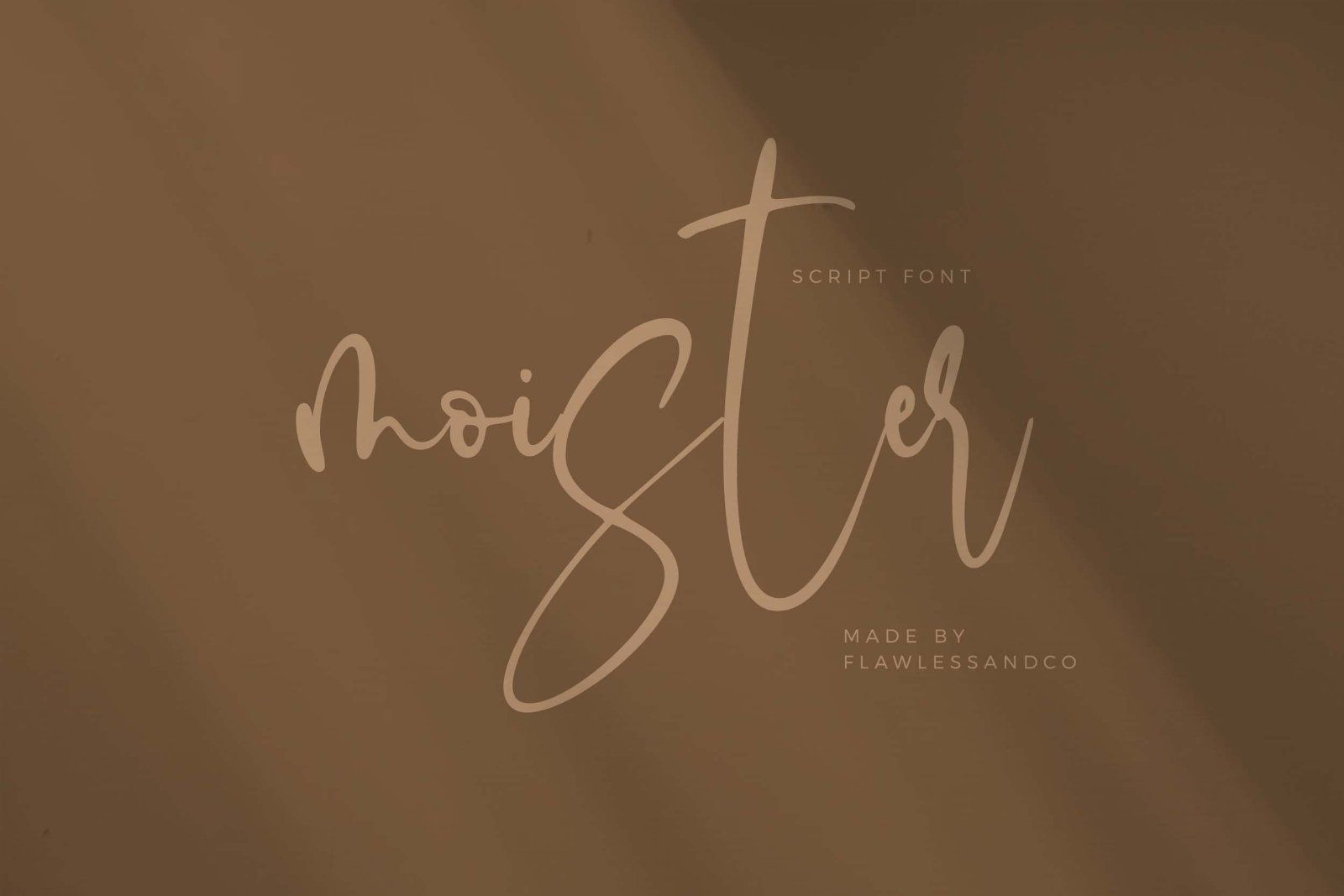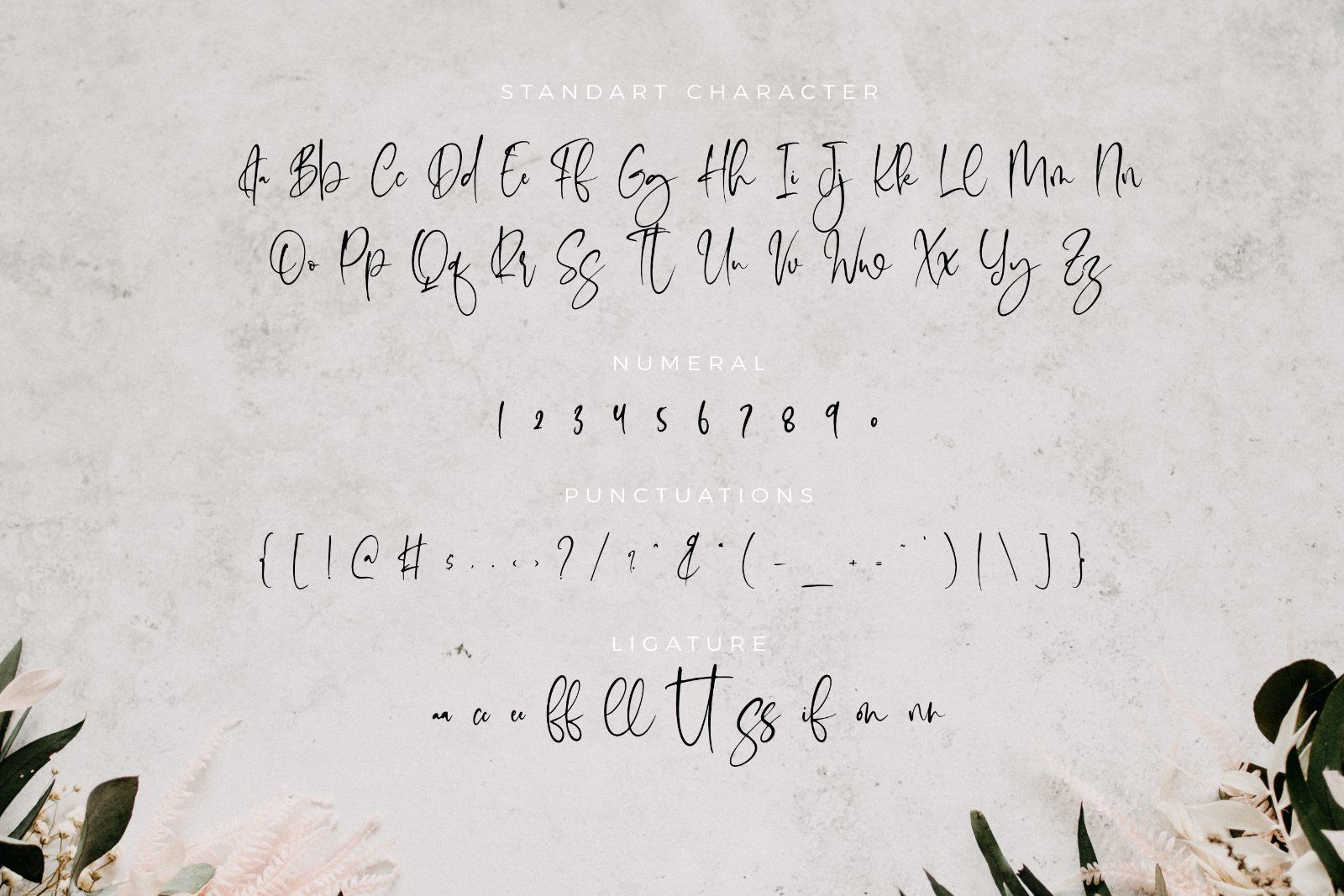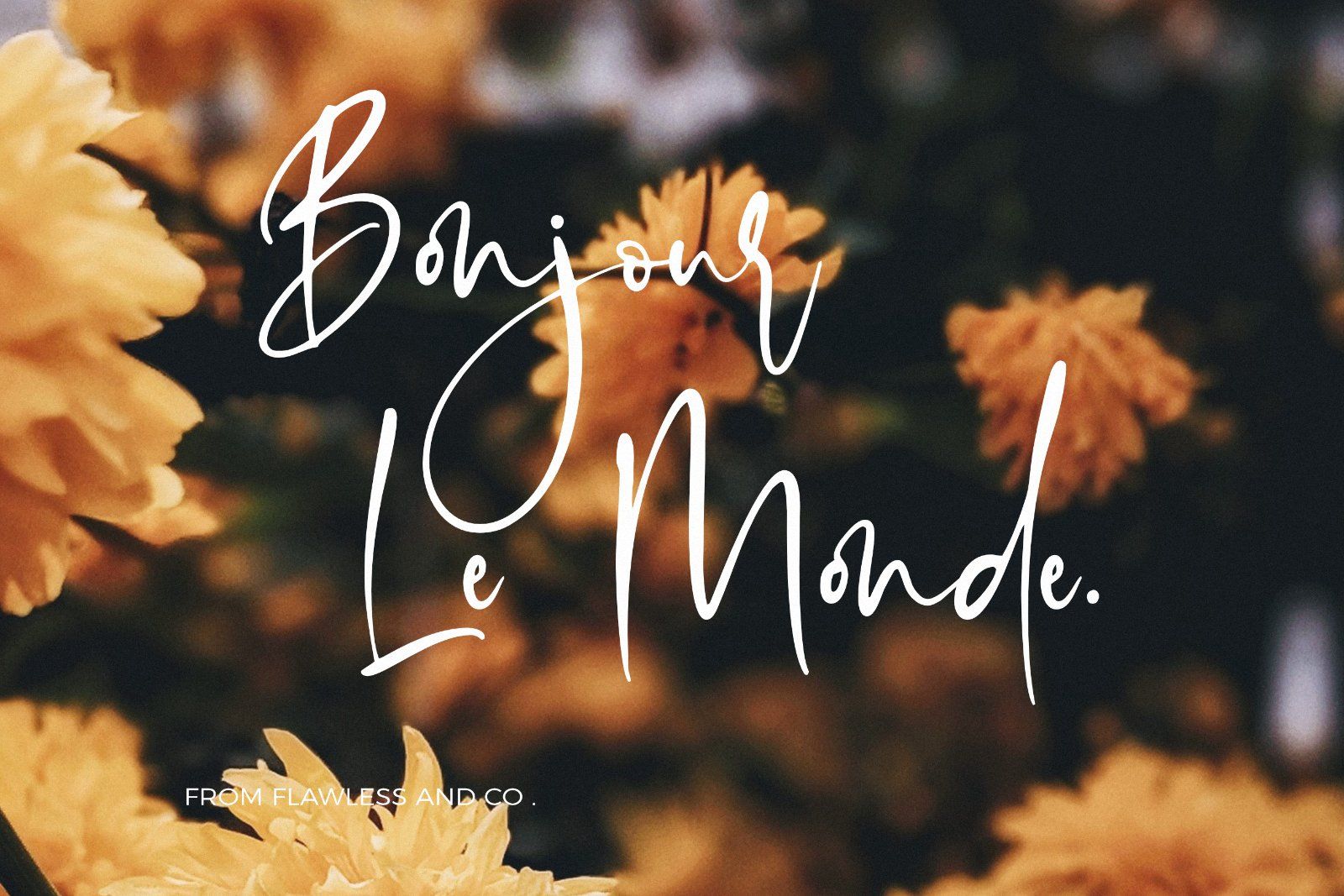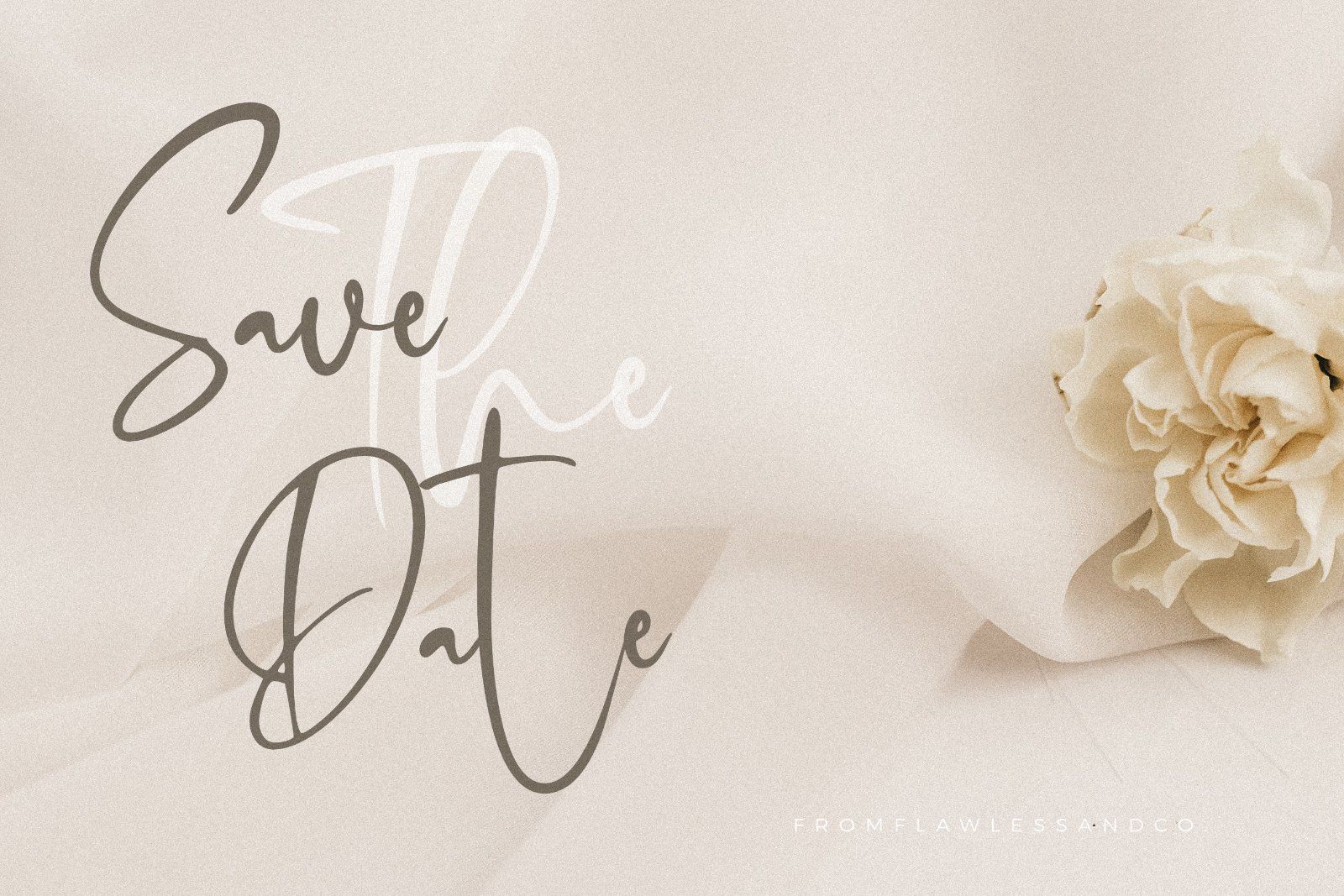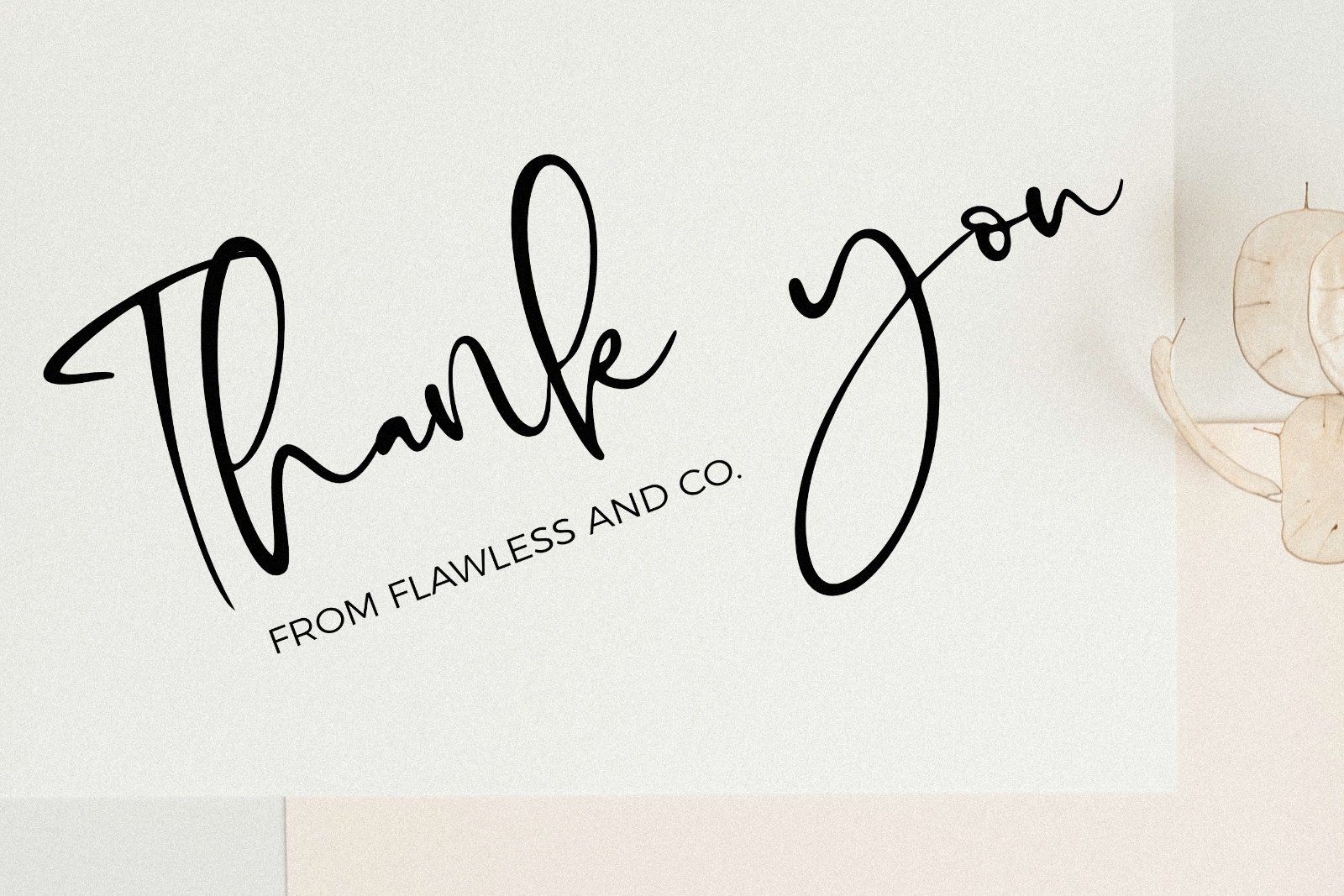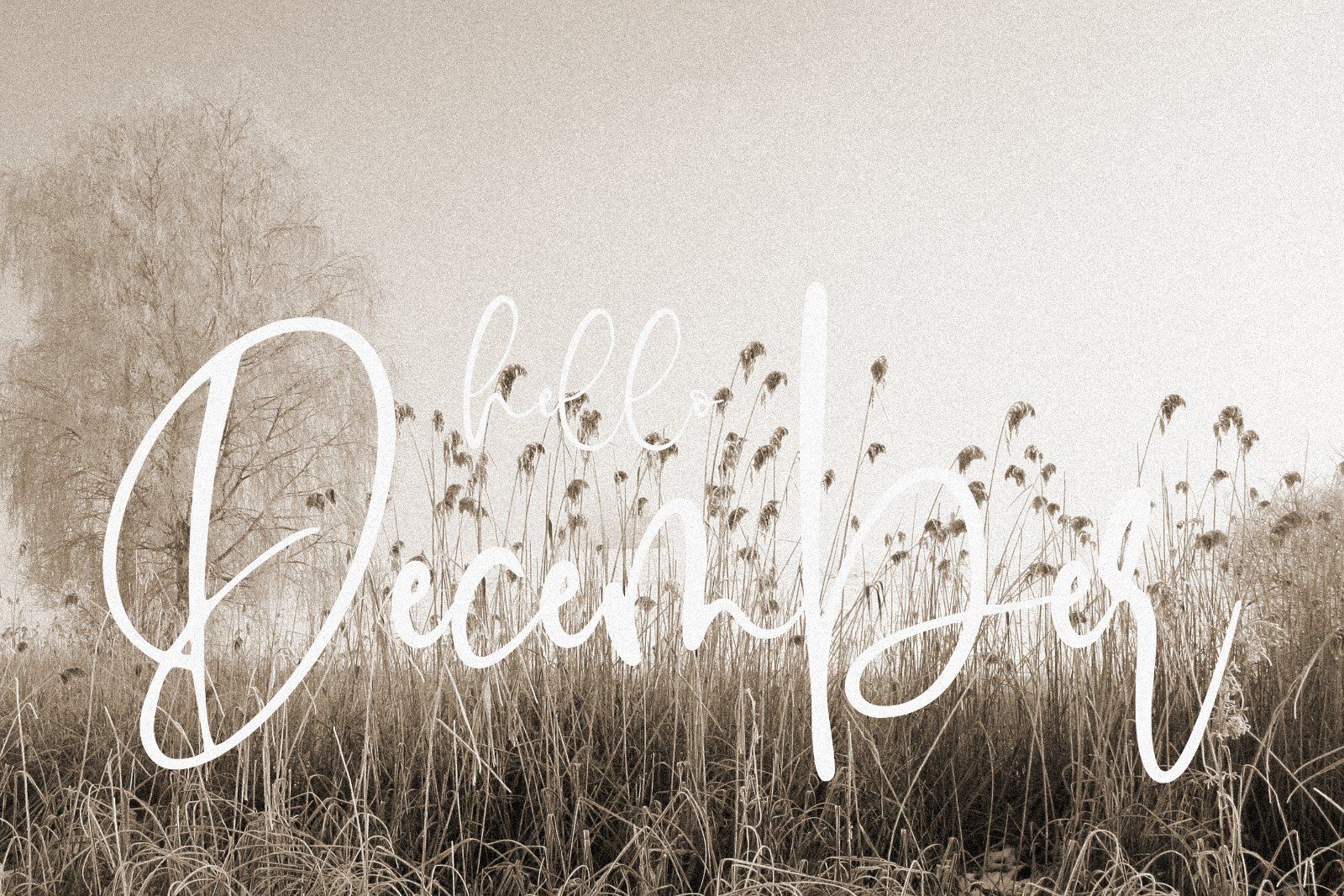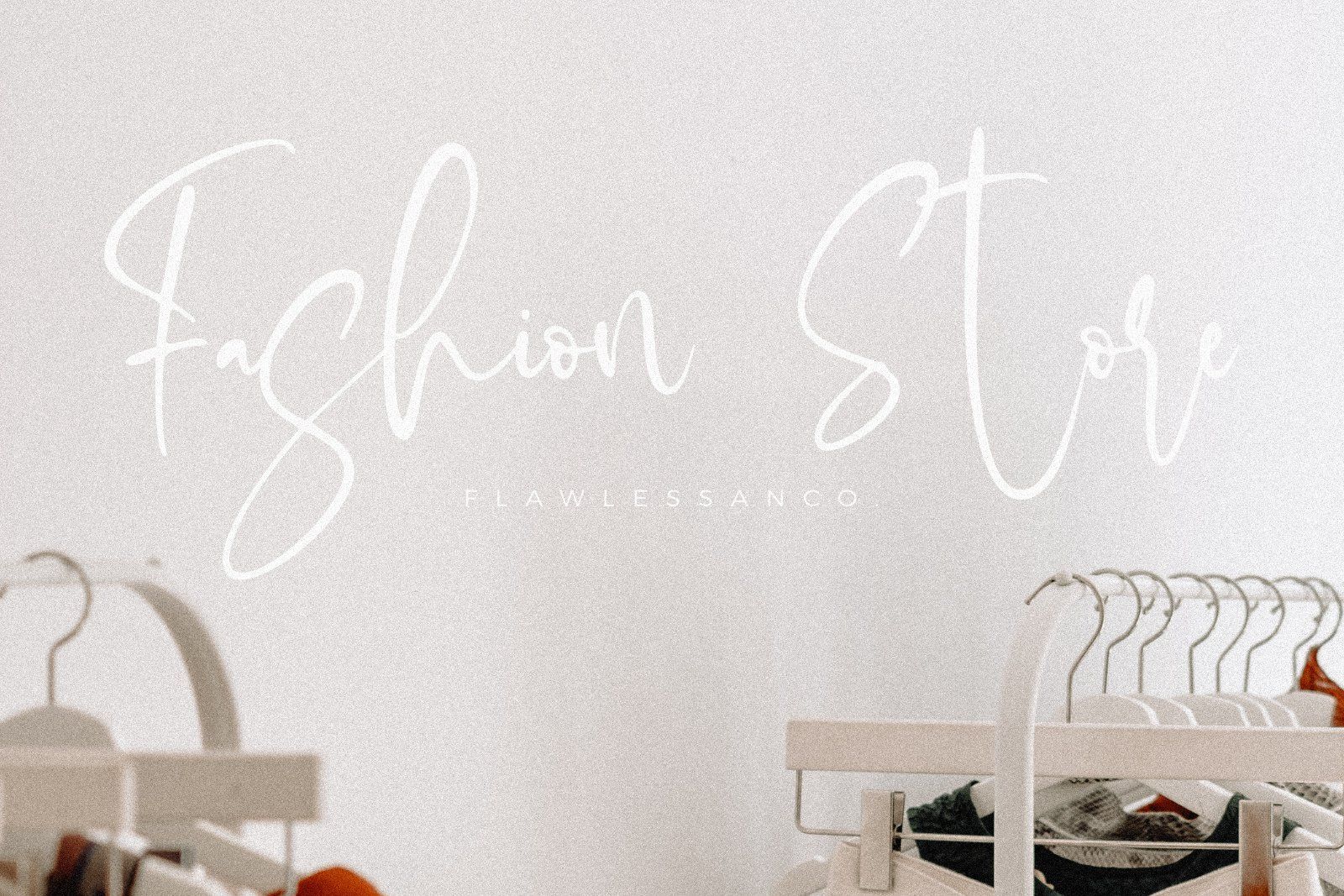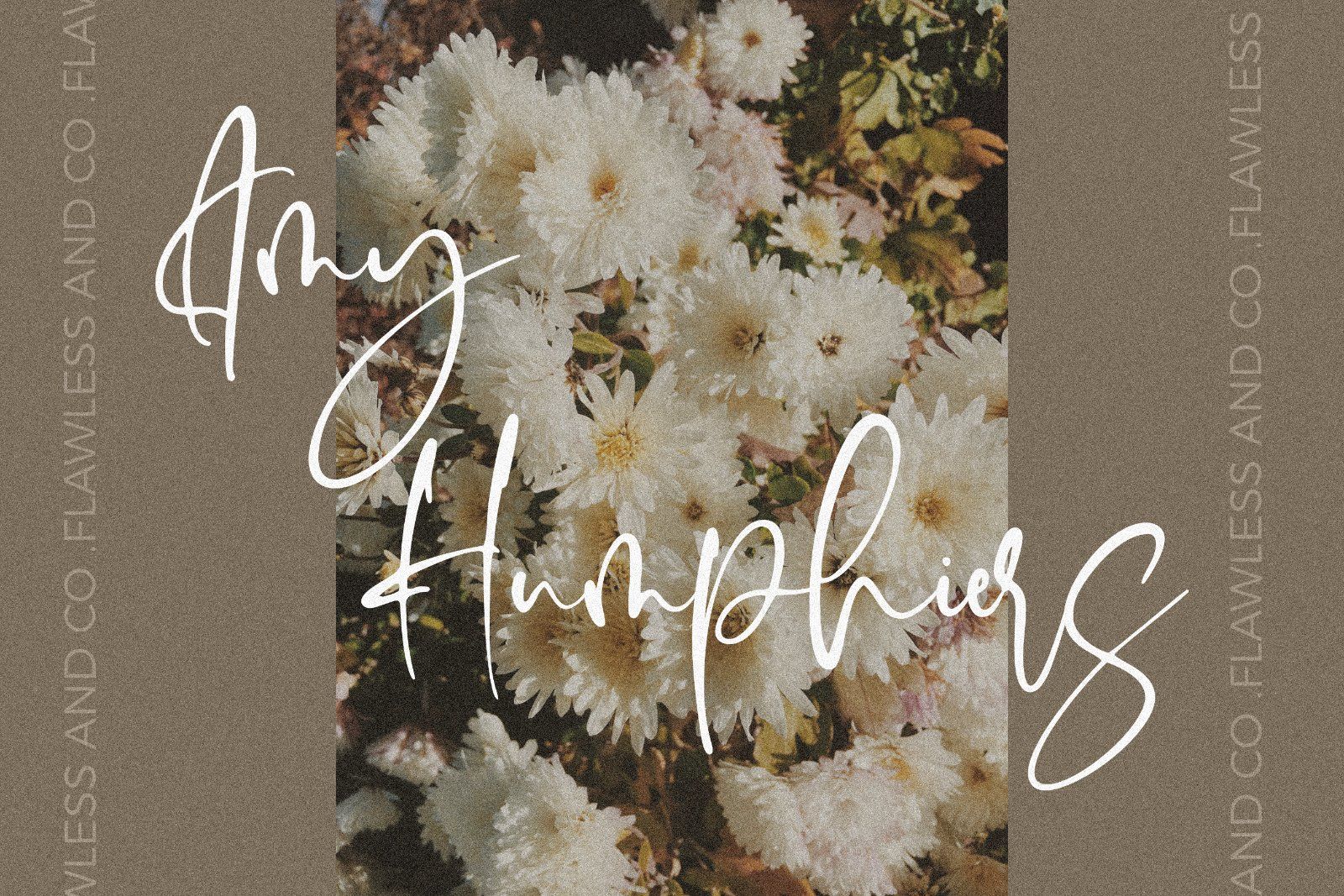
Moister is a stylish script font that blends smooth handwritten strokes with an elegant and expressive character. Its flowing connections, relaxed curves, and distinctive swashes create a natural handwritten appearance with a refined contemporary feel.
• Uppercase alphabet A-Z
• Lowercase alphabet a-z
• Alternate Character
• Numbers 0-9
• Some punctuation